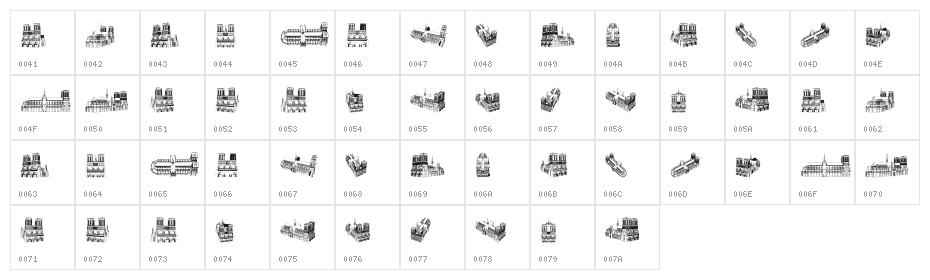
NotreDame de Paris Regular Font
This unique typeface features intricate illustrations of the Notre Dame Cathedral, with each character crafted to resemble different architectural views of the iconic structure. The design is highly detailed, capturing the Gothic elements and grandeur of the cathedral. Each letter and symbol is a miniature artwork, making it a decorative and thematic choice for projects that aim to evoke a sense of history, architecture, or French culture.
| Proposed Projects | Ideal for themed posters, historical event invitations, architectural presentations, and decorative book covers. |